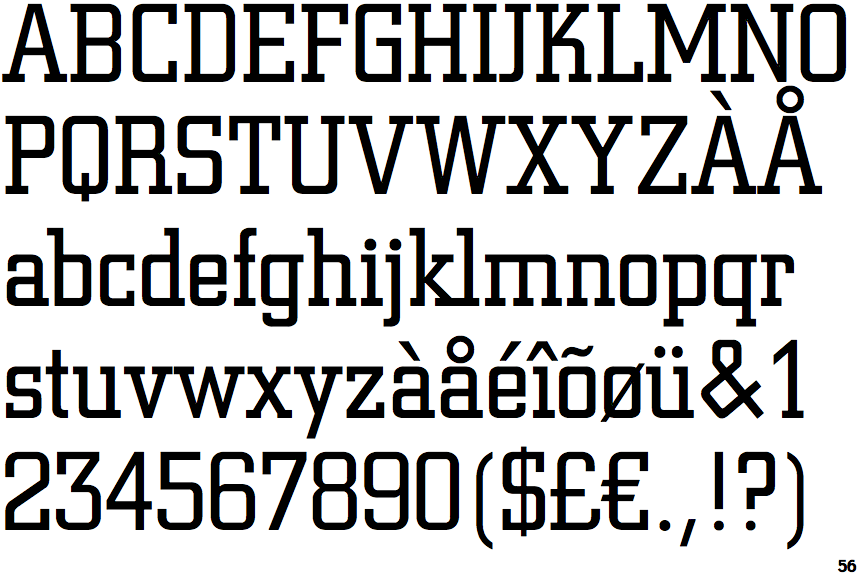
Awasome Square Serif Fonts References. Serifs have their roots in ancient roman square capitals, and became widely. Welcome to i shot the serif, the webby home of matthew welch's fonts.
Web Square Serif Is A Slab Serif Font Family.this Typeface Has Ten Styles And Was Published By Fontsite Inc.
Web oh square sans serif font is a sans serif typeface family which geometric and humanist make a blend. Web the more graceful square serif fonts can be used for body copy, and in their bolder variations make impressive display fonts. Web be aware that the square serif bold font is free for personal knowledge and use only.
This Typeface Has Ten Styles And Was Published By Fontsite Inc.